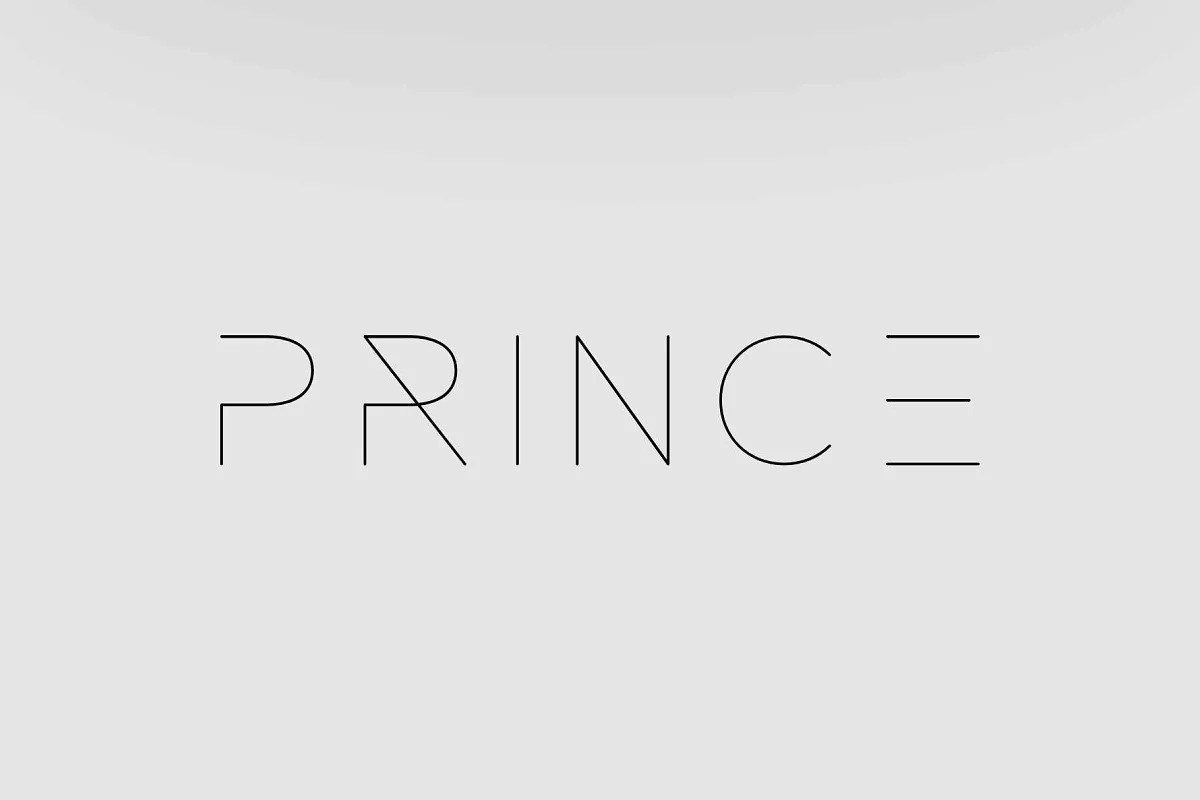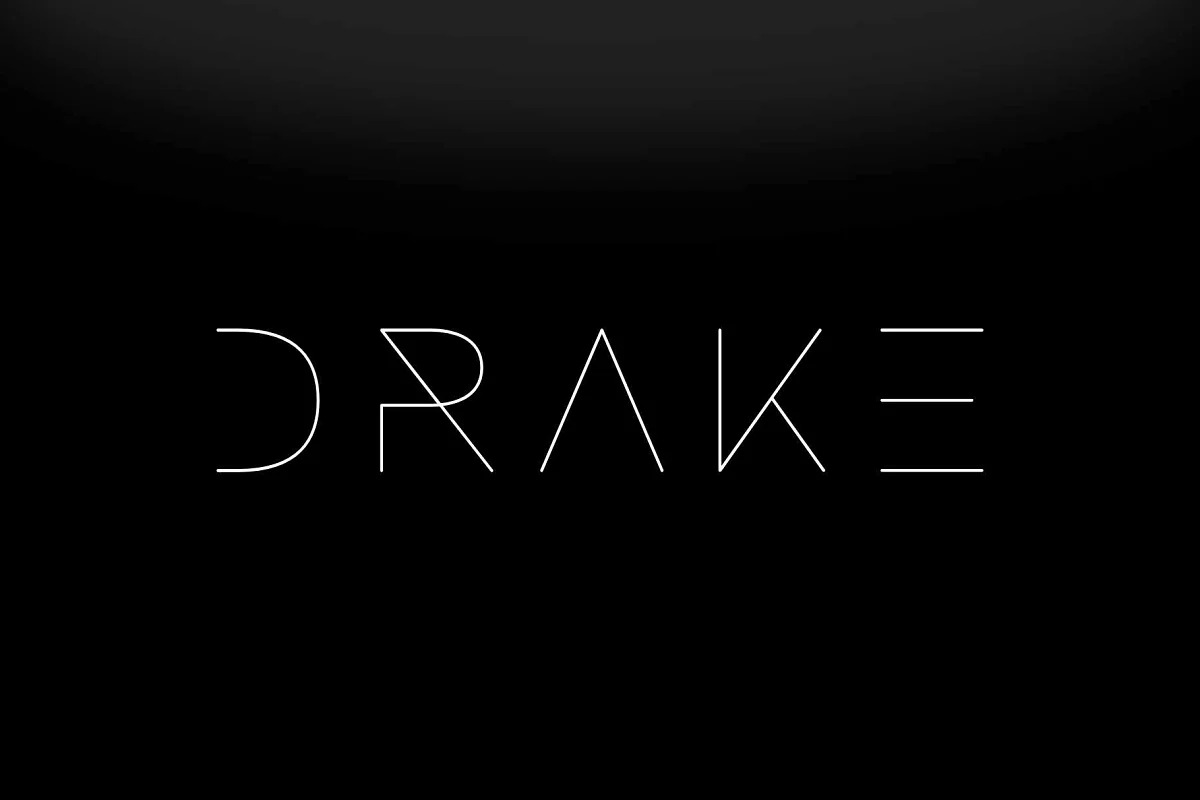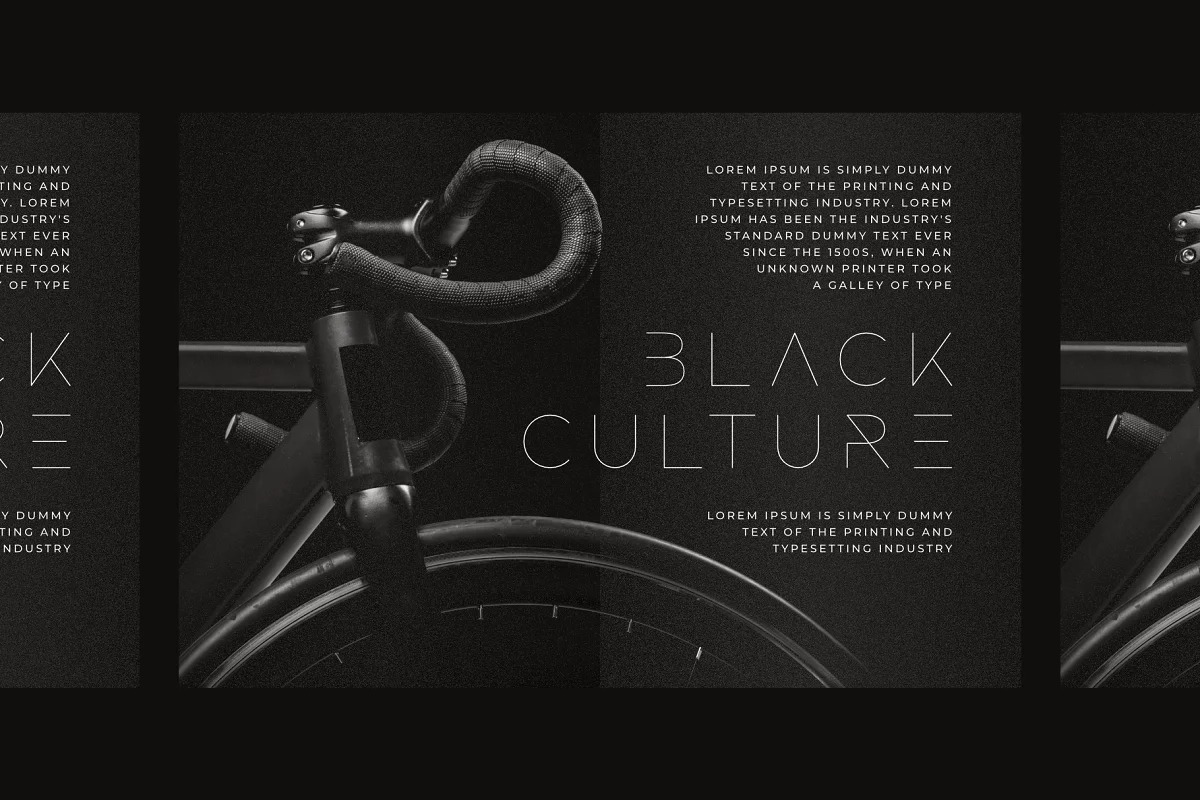
Rocket Wildness Font
Rocket Wildness Display Font is a futuristic font, a font inspired by the visual of technology that we can find from logo, sci-fi movies, games, and the present gadgets. Rocket Wildness also provided stylistic alternative characters that allowed you to play your typography game freely. Designed with minimalist style and unique letterforms, a perfect choice to use on logos, labels, posters, packaging, books, movies, presentations, games, and much more!